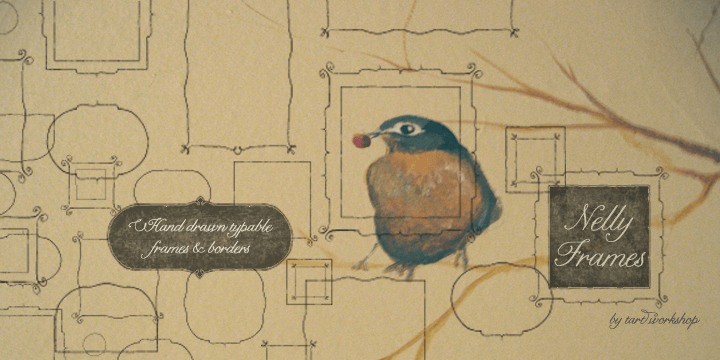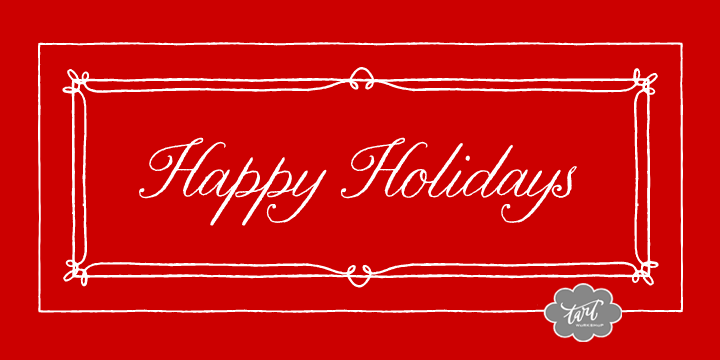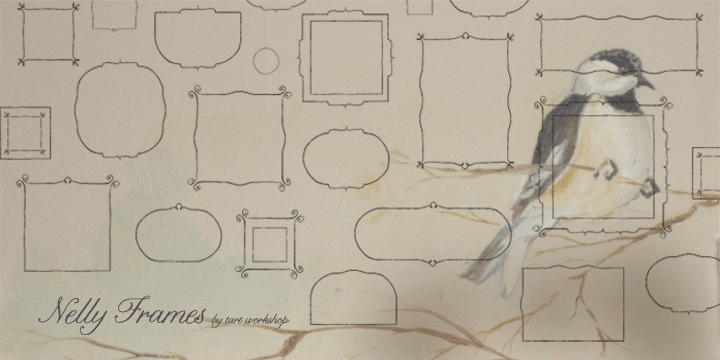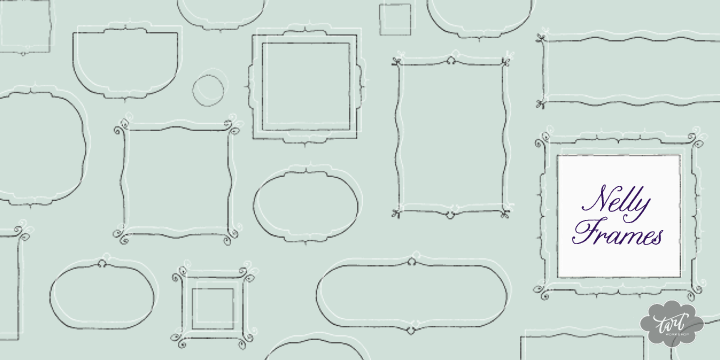
Nelly Frames
Font Family by Tart Workshop
Created as the perfect compliment to Nelly Script and Nelly's dramatic companion Nelly Script Flourish, Nelly Frames brings it all together with an endless variety of interlocking corners, sides and centers. Download the PDF Manual to see how many ways there are to enjoy Nelly Frames!